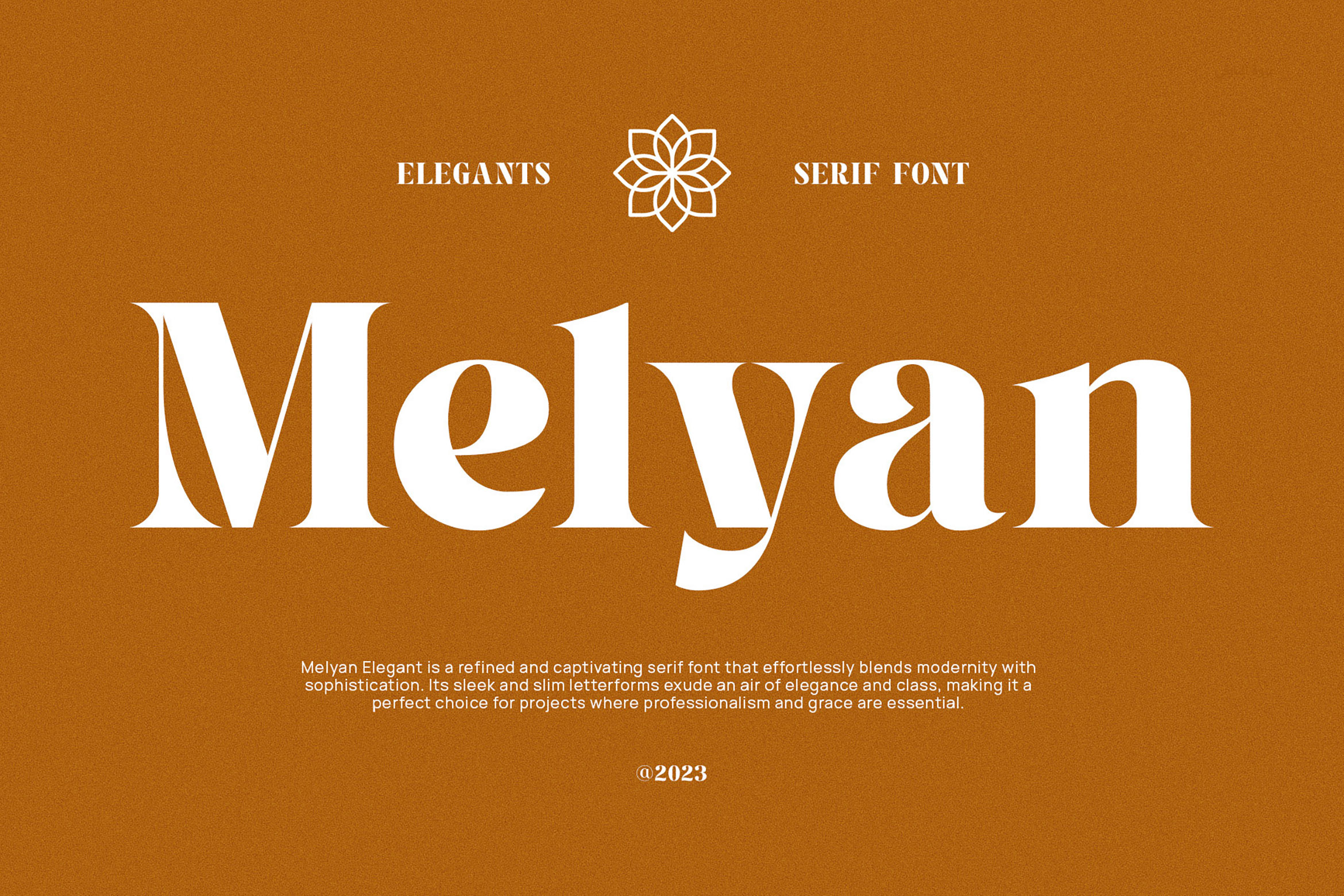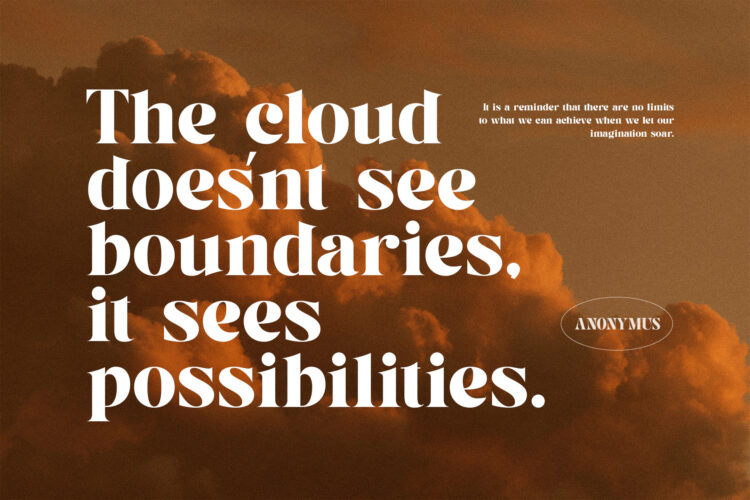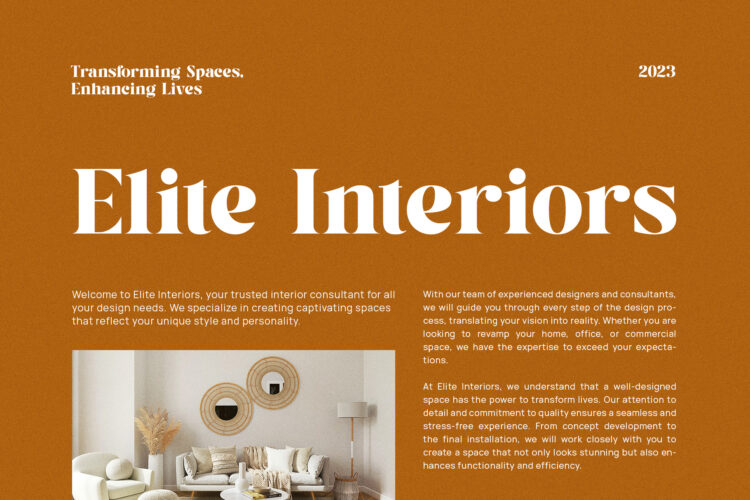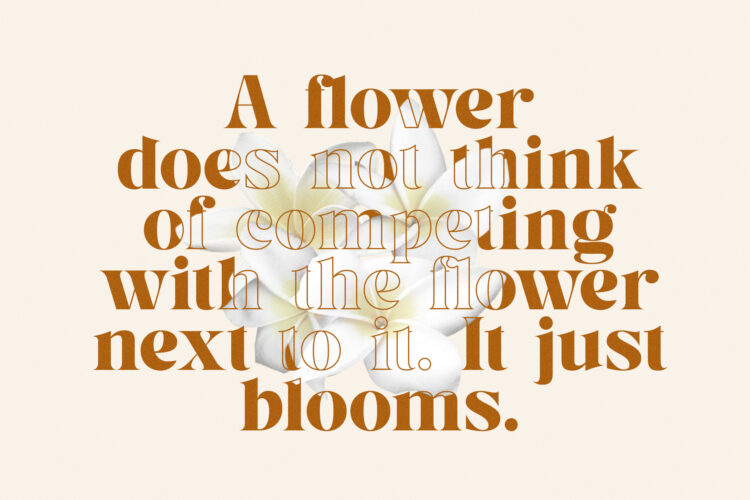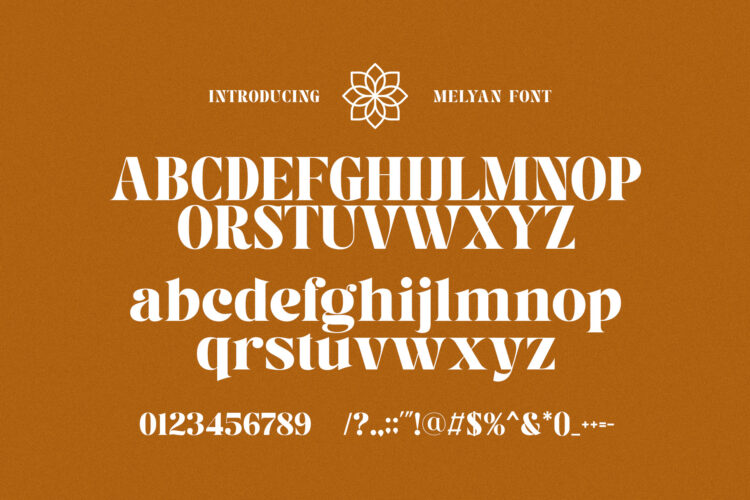
Introducing our new Melyan, modern serif font with elegant style this is perfect for branding, logos, invitation, magazines, product packaging and more.
Melyan – Classy & Stylish Serif